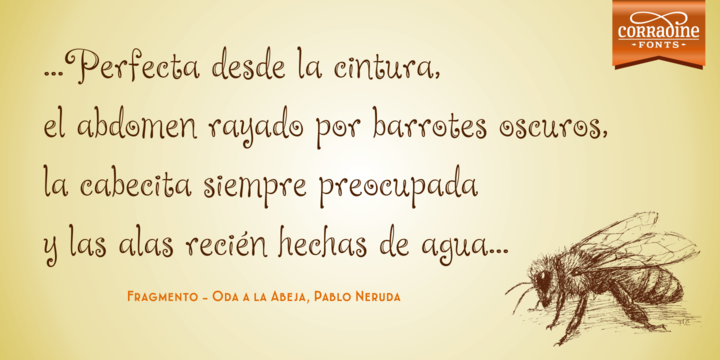
Introducing the Miel Family Font, a Striking Symphony of Elegantly Crafted Characters, Bestowing Breathtaking Beauty Upon Your Creative Endeavors.
Inspired by the Essence of Sweet Honey, Miel Gracefully Flows Across Digital Canvases, Leaving a Trail of Enchanting Visual Delights. Each Glyph Is Like a Handpicked Bloom, Carefully Arranged to Form a Harmonious Typographic Tapestry That Captivates and Inspires.
Indulge in the Luxurious Curves and Flourishes of Miel's Script, Perfect for Conjuring an Air of Refined Elegance in Headlines, Book Covers, and Posters. Let Your Words Blossom into Mesmerizing Masterpieces, Commanding Attention with Their Timeless Beauty.
Embrace the Limitless Versatility of Miel, a True Renaissance Font Flourishing in a Multitude of Design Realms. Its Alluring Curves Add a Touch of Romantic Charm to Wedding Invitations and Logos, While its Bold Strokes Bring Dynamism to Branding and Marketing Materials.
Unleash Your Creativity with Miel, Your Trusted Companion in the Realm of Artistic Expression. Let Your Imagination Soar as You Craft Designs That Speak Volumes, Leaving an Indelible Mark on Hearts and Minds.
Elevate Your Design Game to Uncharted Heights with Miel, the Epitome of Grace and Style. Its Exquisite Details Will Transform Your Projects into Works of Art, Leaving a Legacy of Visual Splendor.